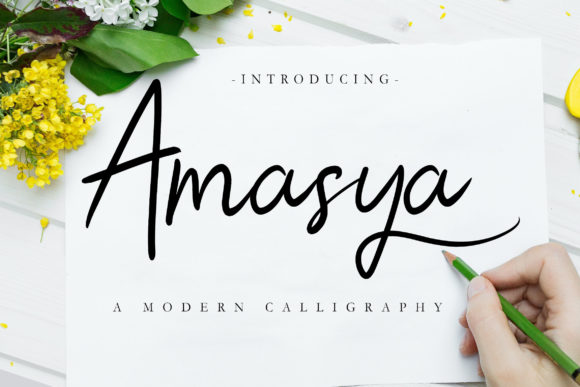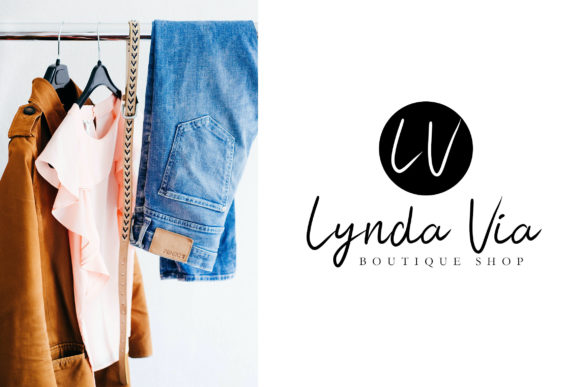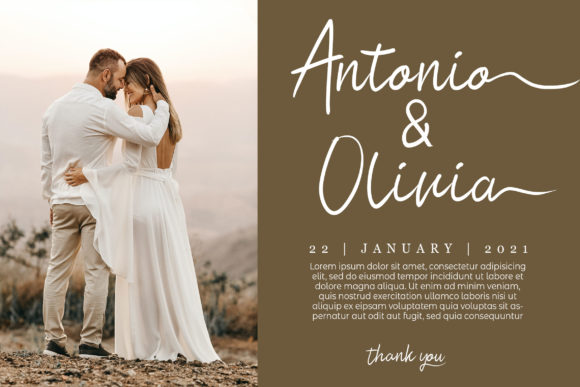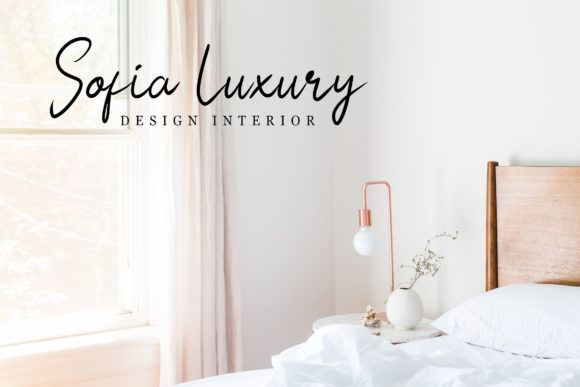
About Amasya Font
Amasya is a font that exudes a thin and cute charm in its handwritten style. With its versatile and adorable vibe, this font is perfect for creating a wide range of designs, adding a touch of sweetness to your creative projects.
The thin and cute handwritten style of Amasya brings a sense of playfulness and charm to your creations. Each letter carries the artistic and adorable touch of handwriting, making your work stand out with a touch of endearing beauty and allure.
With Amasya as your creative tool, you have the freedom to explore various design ideas. Whether you’re working on projects that require a delicate and cute vibe, creating designs with a touch of versatility and charm, or seeking a font that perfectly complements your vision, Amasya adapts effortlessly to bring a sense of sweetness and flair to your work.
Embrace the thin and cute style of Amasya and witness how it transforms your creations into spectacular works of art. Its adorable and versatile nature adds a touch of authenticity, making your designs truly captivating and delightful.
Discover the joy of creating with Amasya as your trusted companion. Let its handwritten appearance be the key to unlocking your creativity and infusing your work with a sense of endearing style and charm.
Whether you’re designing for personal projects or professional endeavors, Amasya is the font that adds that extra touch of flair and cuteness to your creations. Embrace Amasya and notice how it enhances the appeal and impact of your designs, making them truly special and unforgettable.
Let Amasya be the font that sparks your inspiration and brings a touch of versatility and cuteness to your designs. Experience the magic of Amasya and witness how it elevates your creative projects, making them truly spectacular and filled with a sense of adorable style and allure.